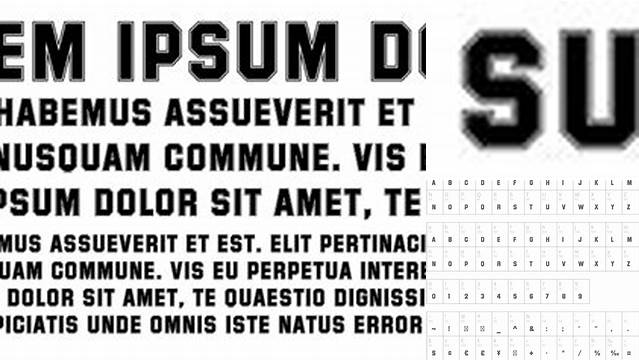
Superstar STD Font: An Overview
Superstar STD is a bold, condensed sans-serif font that exudes a sense of strength, modernity, and a touch of vintage flair. Originally designed by the LetterPerfect foundry, it has become a popular choice for a variety of design applications, including headlines, logos, posters, and more. Its clean lines and distinctive letterforms make it incredibly readable, even at smaller sizes, while its strong presence ensures your message will grab attention. The Superstar STD font family typically includes several weights, allowing for flexibility in your design choices. Whether you need a subtle whisper or a commanding shout, Superstar STD has you covered. Its inherent versatility has made it a favorite among graphic designers, marketers, and anyone looking to create visually stunning content. From print to digital, this font has proven its adaptability time and again. The aesthetic of Superstar STD lends itself well to both minimalist and more elaborate designs, making it a true workhorse in the font world. It's the kind of font that can elevate your project from okay to outstanding with a simple switch. Understanding the characteristics of the Superstar STD font will help you better understand when and how to deploy it effectively in your design projects. This knowledge will, in turn, help you unlock the full potential of this iconic typeface and achieve your creative goals. Remember, choosing the right font is essential to delivering the right message to your target audience. Choosing a font isn't just about picking something pretty; it's about conveying the right message to the right people.
The History and Characteristics of Superstar STD
Let's delve a little deeper into the background of this amazing font! The Superstar STD font has a rich history, rooted in the art of typography and the craftsmanship of its designers. Its bold and condensed nature makes it stand out from the crowd. Its timeless aesthetic has kept it relevant in an ever-changing design landscape. The Superstar STD font is characterized by its sharp lines and a certain geometric quality that adds a contemporary touch. The design of each character of Superstar STD carefully balances form and function to ensure maximum readability and impact. The font's inherent versatility means it is suitable for diverse design requirements. This quality makes Superstar STD an indispensable tool for designers. The condensed nature of Superstar STD allows you to pack more text in a limited space without compromising legibility. This makes it very suitable for headlines, subheadings, and short bursts of text. Understanding the history and design of Superstar STD will equip you with a deeper appreciation of its utility and help you unleash its power in your creative works. Think about how the font's history and design might affect the message you want to convey. Knowing these nuances can help you choose the font that is best for the message you are hoping to communicate. Considering such factors will enable you to create designs that are visually appealing and effectively communicate your message.